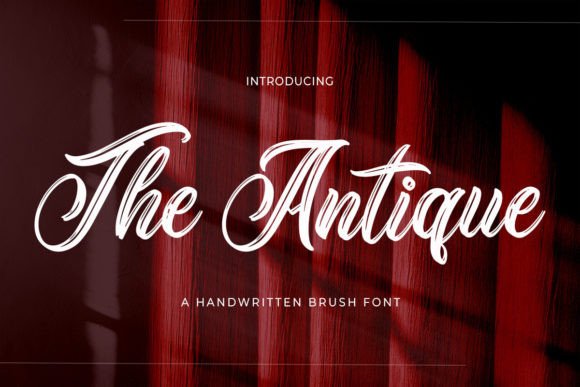
Introducing "The Antique Font" - A Timeless Masterpiece for Your Creative Endeavors
Embrace the allure of a captivating script font, meticulously crafted to add a touch of elegance and charm to your designs. The Antique Font, a brainchild of the talented Tabriiz, is not just a collection of letters; it's an artistic journey through history, bringing the beauty of old-world calligraphy to life.
With its graceful strokes and intricate details, The Antique Font evokes a sense of nostalgia and romance. Its timeless appeal makes it the perfect choice for creating logos, branding materials, invitations, wedding stationery, and any project that demands a touch of sophistication.
Unleash your creativity with this versatile font, ideal for a wide range of projects. From crafting heartfelt greeting cards to designing stunning digital artwork, The Antique Font effortlessly elevates your creations. Whether you're a seasoned designer or just starting your creative journey, this font is your gateway to captivating designs.
As you explore the endless possibilities of The Antique Font, let your imagination soar. Its timeless beauty transcends trends, making it a font you'll cherish for years to come. So, immerse yourself in the world of handwritten dry brush artistry and experience the joy of transforming your creative visions into stunning realities.